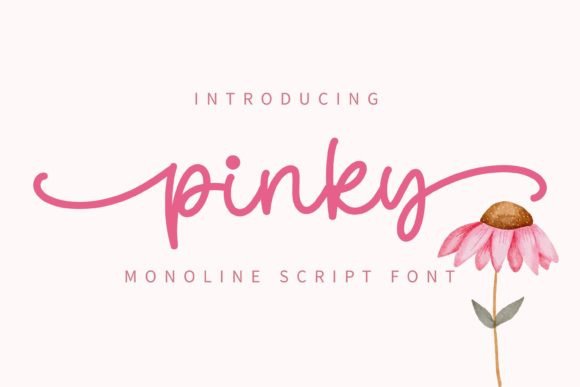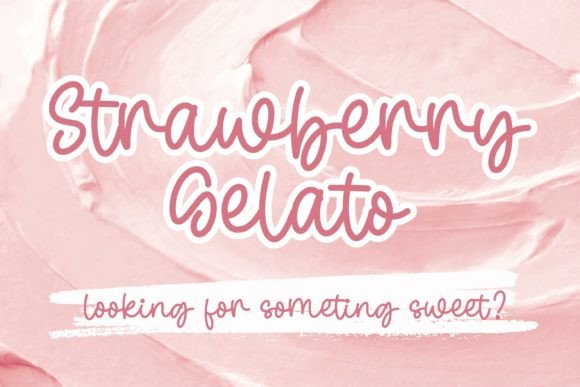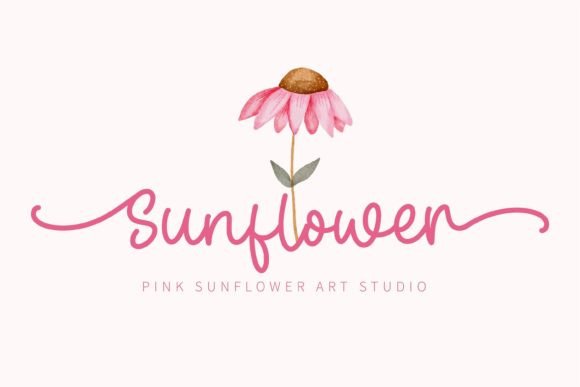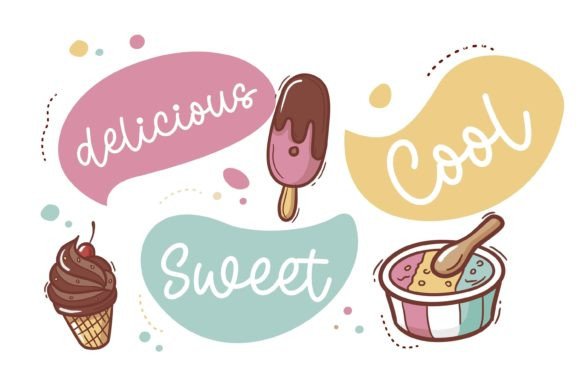
Pinky Font: Cute Handwritten Script for Social Media Design & Wedding Invites
About the Pinky Font
Introducing the Pinky Font, a beautifully crafted typeface designed to elevate your creative projects. Pinky is a sweet and cute handwritten font. Fall in love with its incredibly versatile style and use it to create gorgeous wedding invitations, beautiful stationary art, eye-catching social media posts, and much more!
Pinky’s playful charm makes it ideal for projects requiring a touch of whimsy, such as branding for children’s products, wedding stationery, or social media graphics. It excels in headlines, short text blocks, and logos where its handcrafted feel adds personality. However, its delicate nature makes it less suitable for body text or UI elements, where readability is paramount. Extended use could strain the eye.
Pairing Pinky effectively depends on the desired balance. For a sophisticated look, consider pairing it with a clean sans-serif like Lato or a classic serif such as Garamond. To emphasize the playful aspect, a geometric sans-serif like Futura or a fun, slightly quirky script font could work well.
Pinky’s overall personality is undeniably cheerful and approachable, conveying a sense of warmth and friendliness. Avoid using it in contexts demanding seriousness or professionalism.